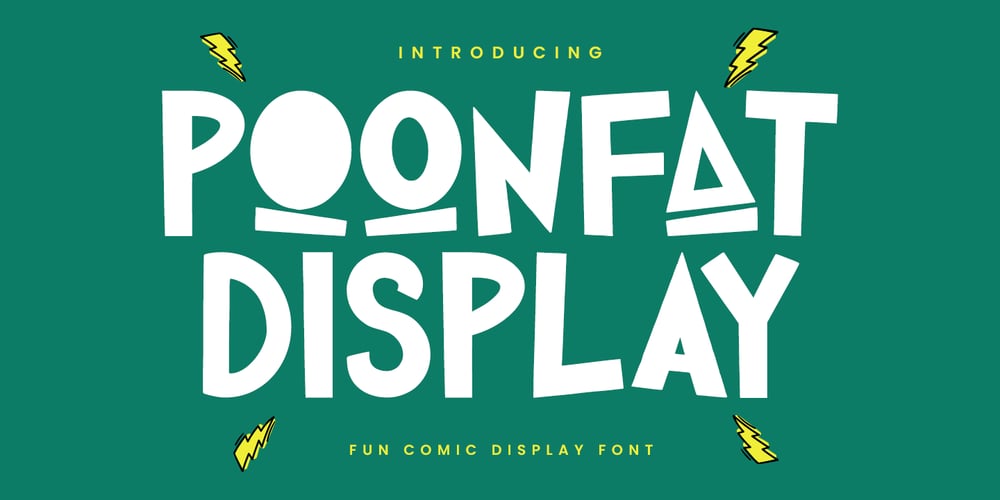
MC Poonfat Font Family was designed by Gilang Maulana and published by Maulana Creative. MC Poonfat contains 1 styles and family package options. Poonfat is a modern comic display font. With bold tall and sharp stroke, fun character with a bit of alternates to give you an extra creative work. Poonfat font support multilingual language. This font is good for logo design, Social media, Movie Titles, Books Titles, a short text even a long text letter and good for your secondary text font with sans or serif. Make a stunning work with Poonfat font.Cheers,Maulana Creative